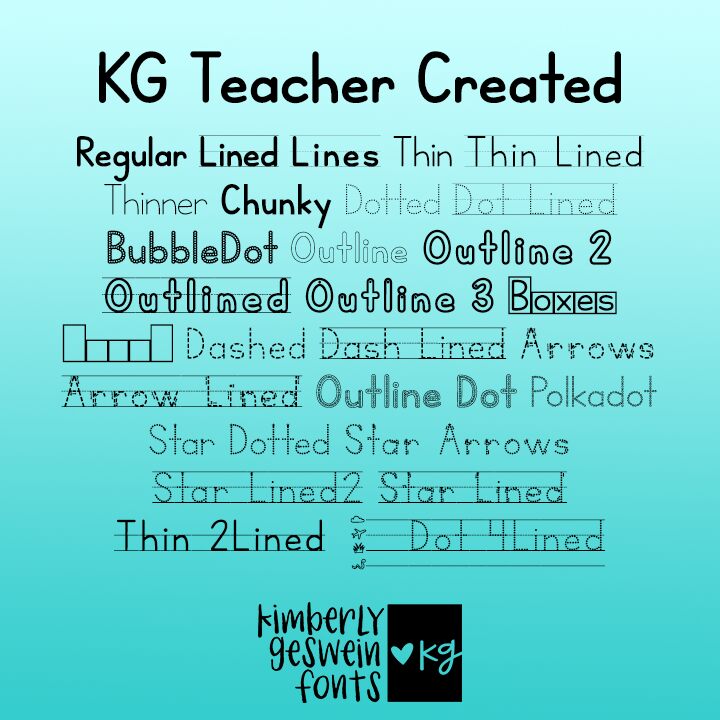
KG Teacher Created font family by Kimberly Geswein is a free script font family. The collection includes a total of 56 handwriting font styles with diverse looks. Some options include only capital letters, others are limited to lowercase letters, and further options may incorporate both. Intended to appear like real handwriting, this selection helps users choose the perfect handwritten look they need for any project. The font expressions range from more neat to more casual, from no accents to strong artistic effects, giving you plenty of options to choose from.
Because the font target audience is children in the early stages of learning, it is most suitable for educational uses and materials. Academics can apply it in classroom works, teachers can design kids’ book covers or posters with it, and parents can use it for worksheets at home. Interactive books will also feature a more entertaining impression when presented this way. The font can also be used in projects outside this category such as for packaging design, retail branding, and alike.